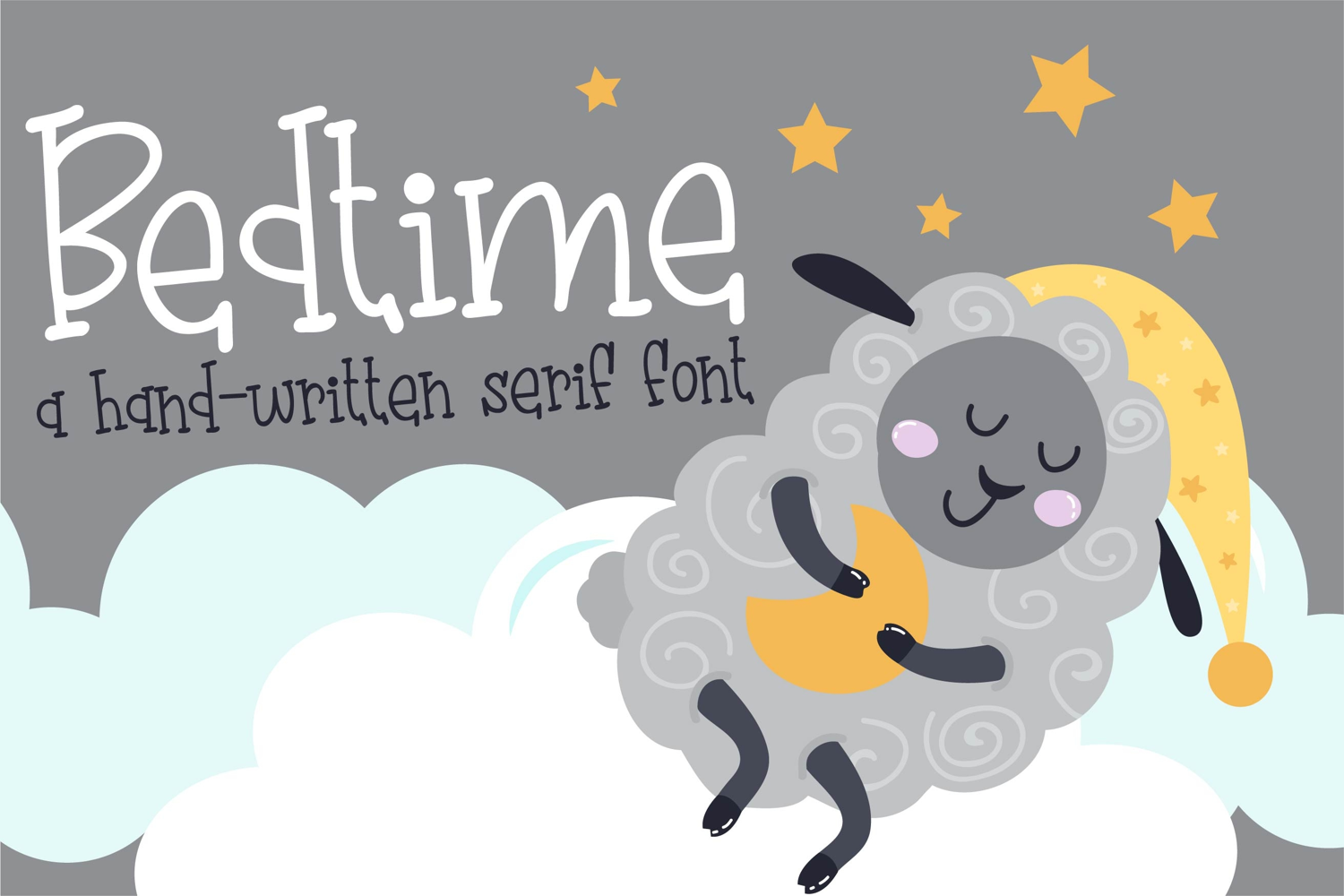
This hand-crafted font is a whimsical, very youthful, hand-written print with hand-crafted serifs.
• The letters are not perfectly uniform in size or shape.
• There may be slight variations in the spacing between letters and words.
• The font may have a "wiggly" or "squiggly" appearance.
• The font may be difficult to read at small sizes.